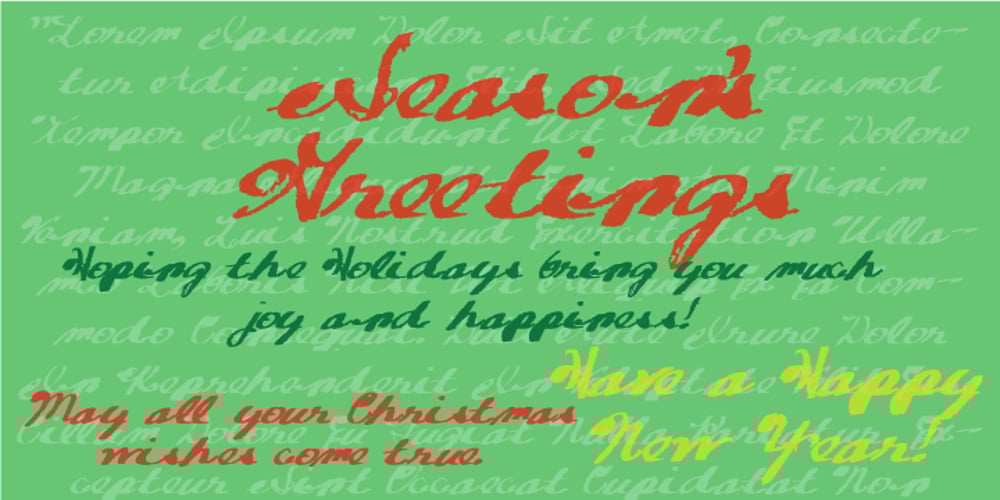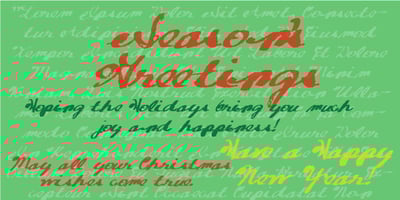
Cirquela Font Family was designed by Wilson Thomas and published by Funk King. Cirquela contains 1 styles and family package options. Cirquela is a new direction in type design for me. This is my first calligraphy font and my first hand drawn. This is a limited character set, but as I continue to explore this space, I hope to expand the character sets of fonts I offer for sale. In the meantime, please enjoy Cirquela. This is a fun font. Eccentric, yet it possesses a subtle formality in spite of itself. Passionate, furious, yet sublime.